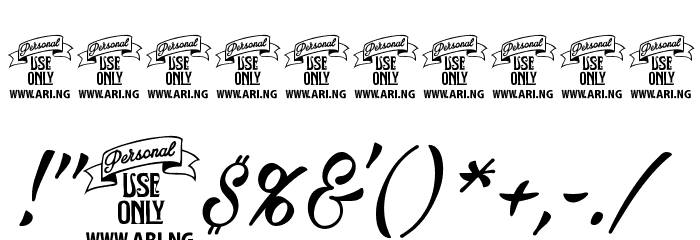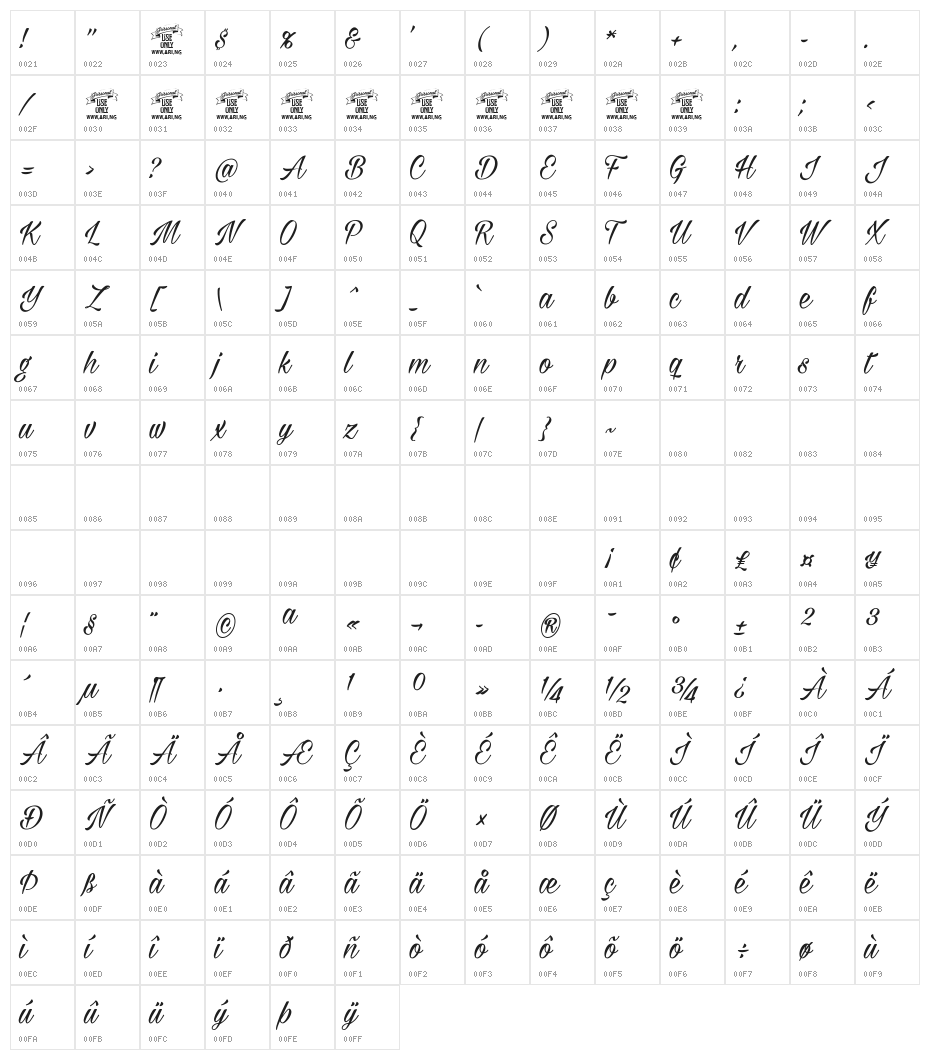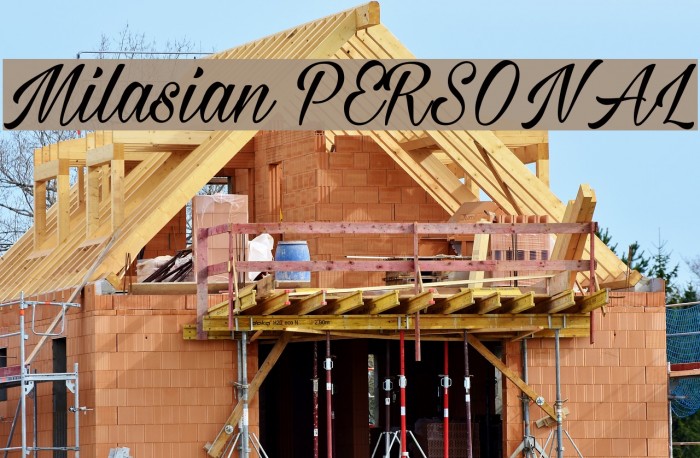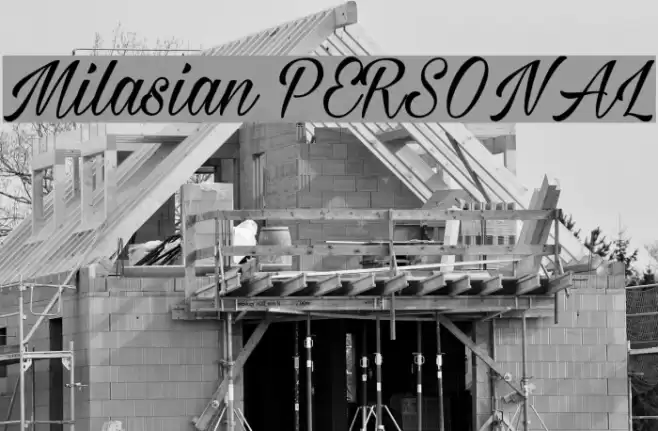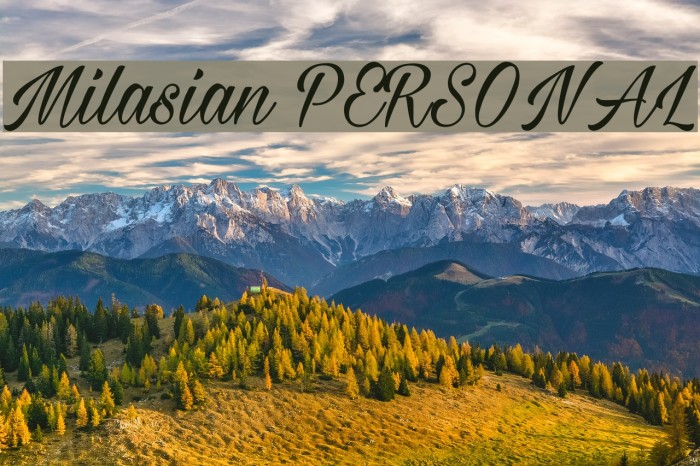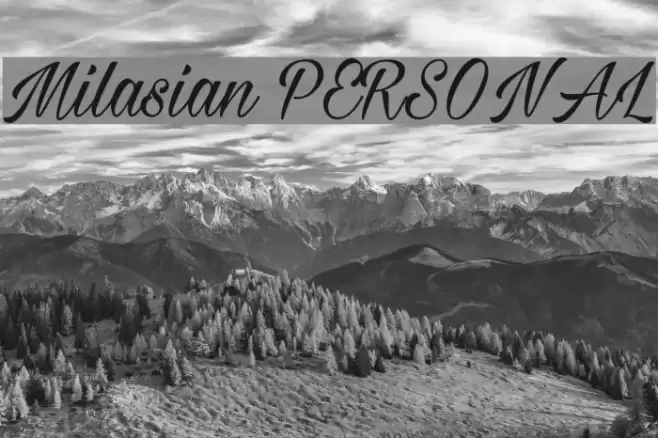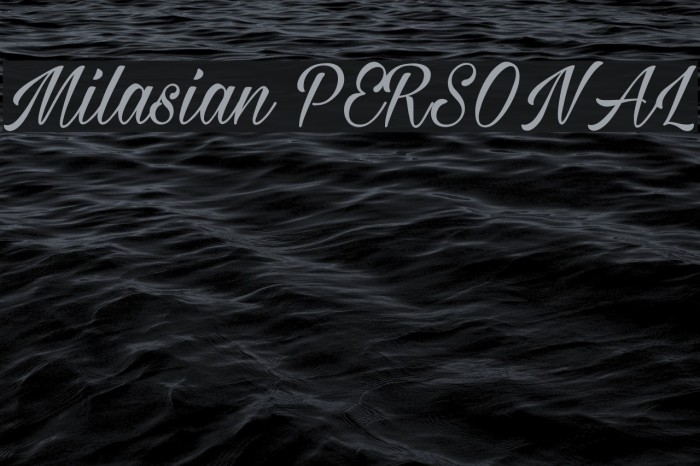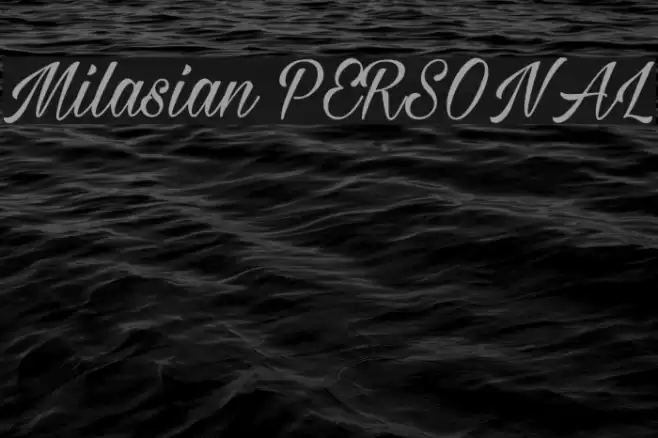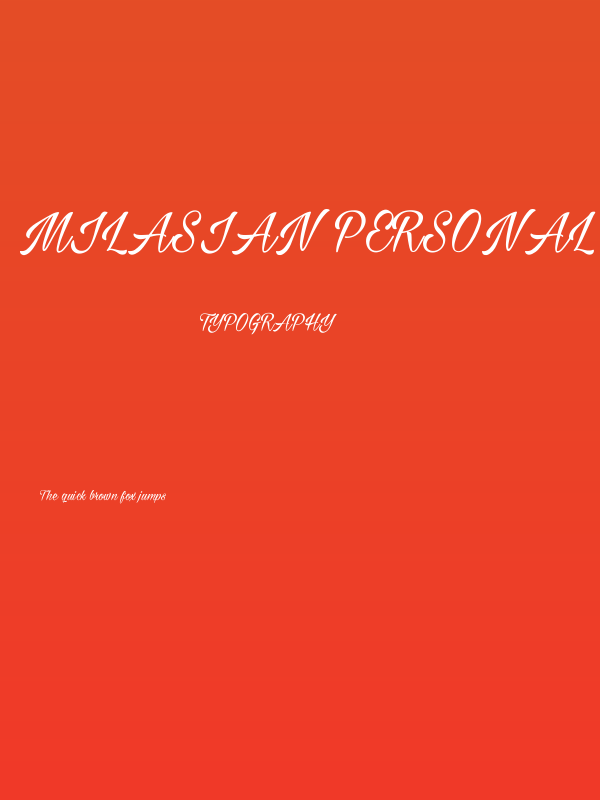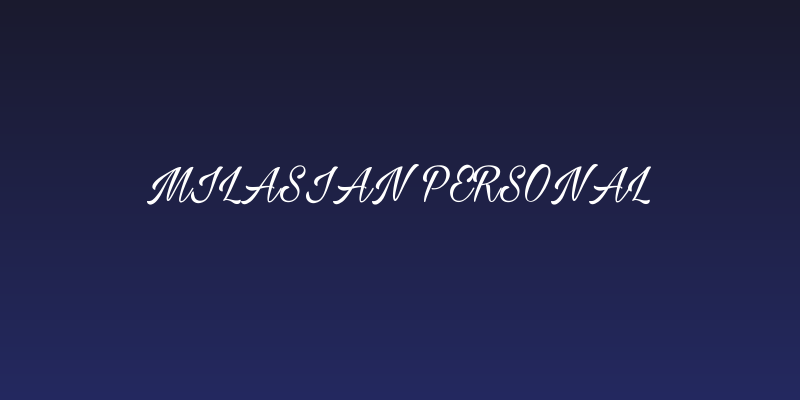
Milasian PERSONAL Font
Milasian PERSONAL Description
This font features an elegant and flowing script style, characterized by its smooth, cursive strokes and a sense of fluidity. The uppercase letters are slightly more ornate, with subtle flourishes that add a touch of sophistication. The lowercase letters maintain a consistent flow, making them highly readable while retaining a stylish appearance. The numerals and special characters are designed to complement the overall script style, ensuring a cohesive look across all text. This font is ideal for projects that require a personal touch, such as invitations, greeting cards, or branding materials.